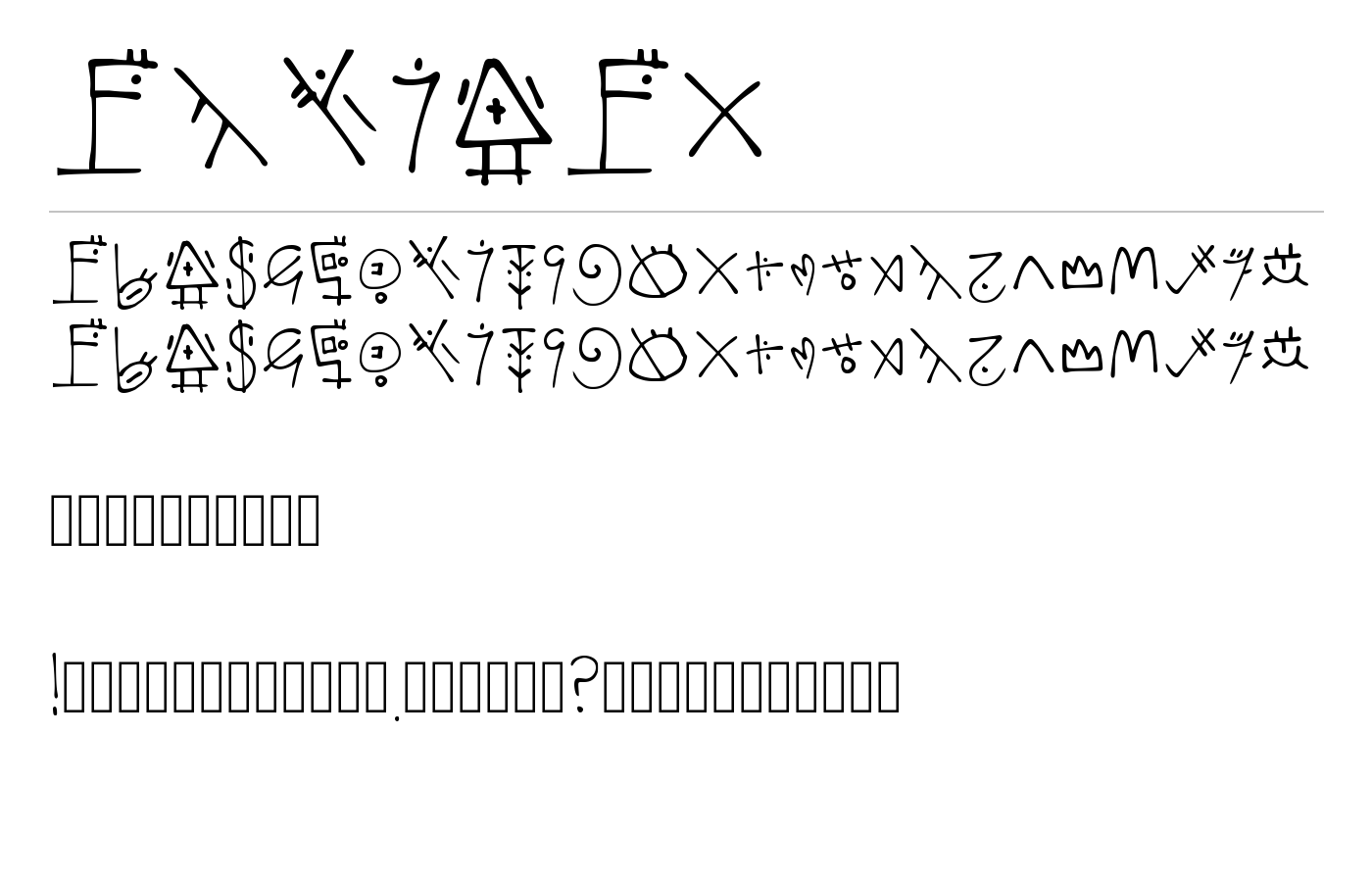
Ashican is a playful, hand-drawn script font with a quirky, abstract style reminiscent of primitive symbols or doodles. Its irregular, whimsical characters bring a unique, artistic vibe that works well for creative projects, casual branding, and designs seeking a fun, unconventional touch. This font is ideal for adding personality and charm to posters, logos, and any context where a lively, imaginative look is desired.
Ashican Font